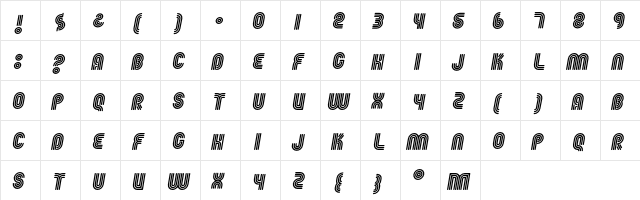
Fgroove SeventySeven
Design Context for Fgroove Typeface
Fgroove is a composed and adaptable typeface that performs quietly and consistently across a wide range of design contexts.